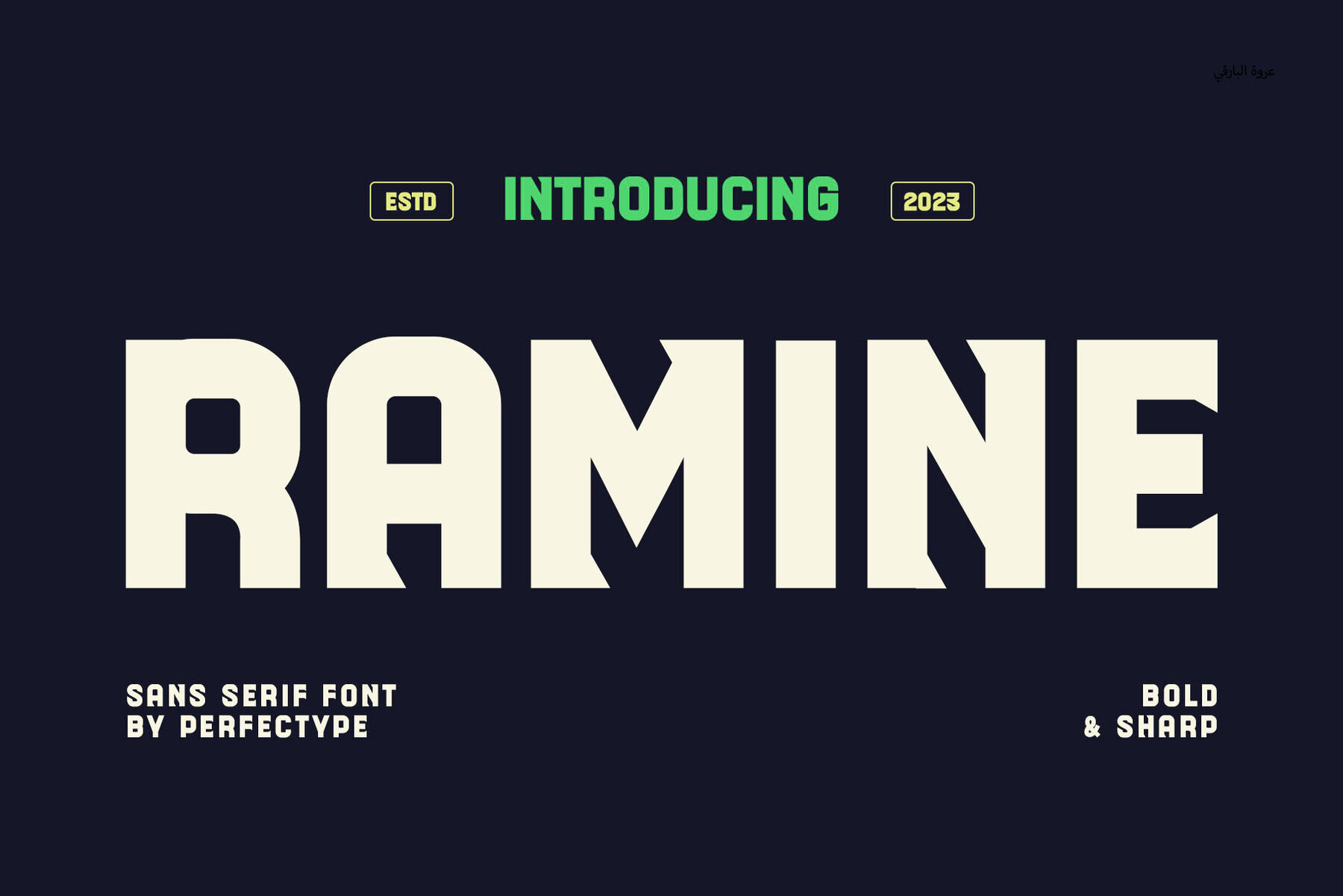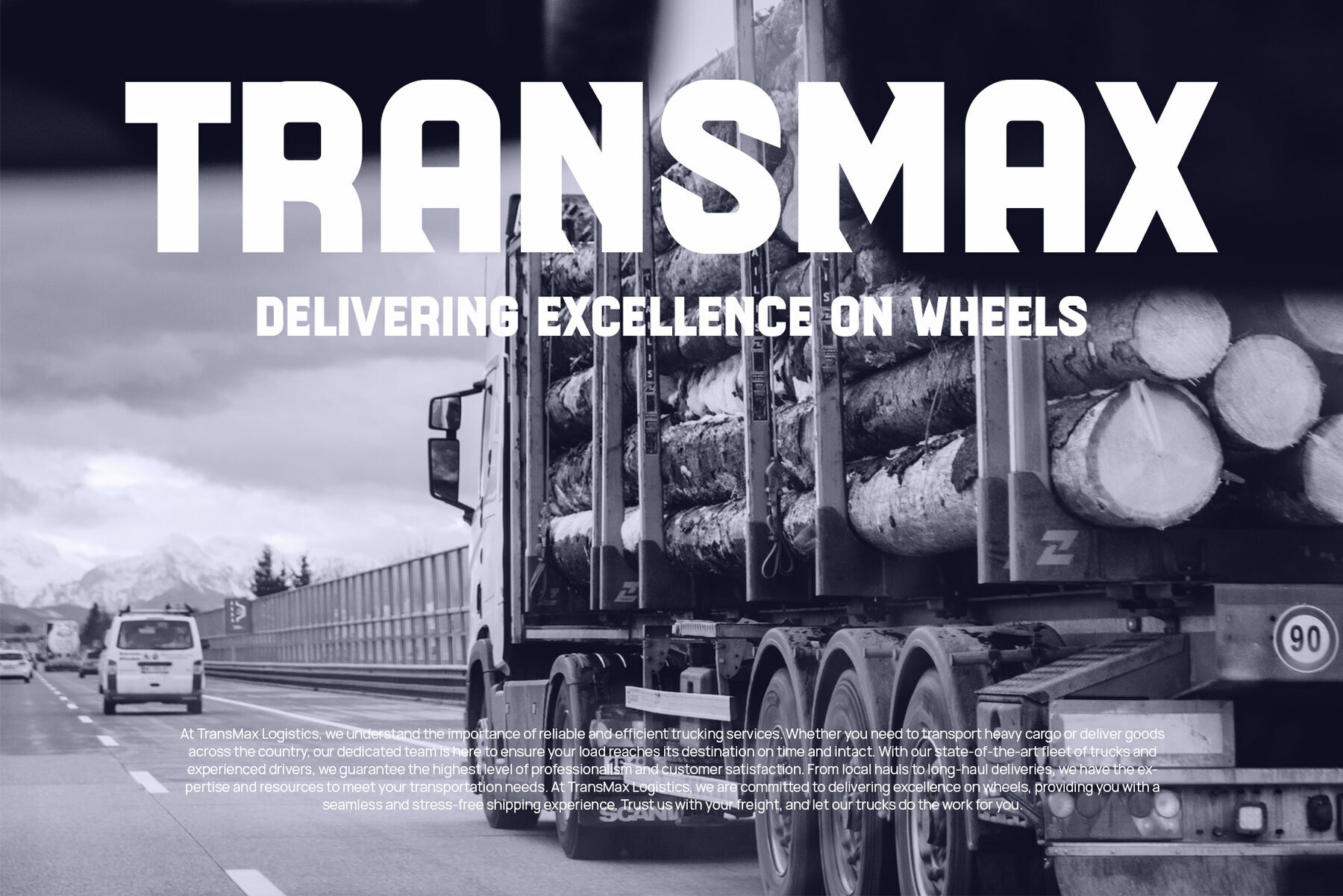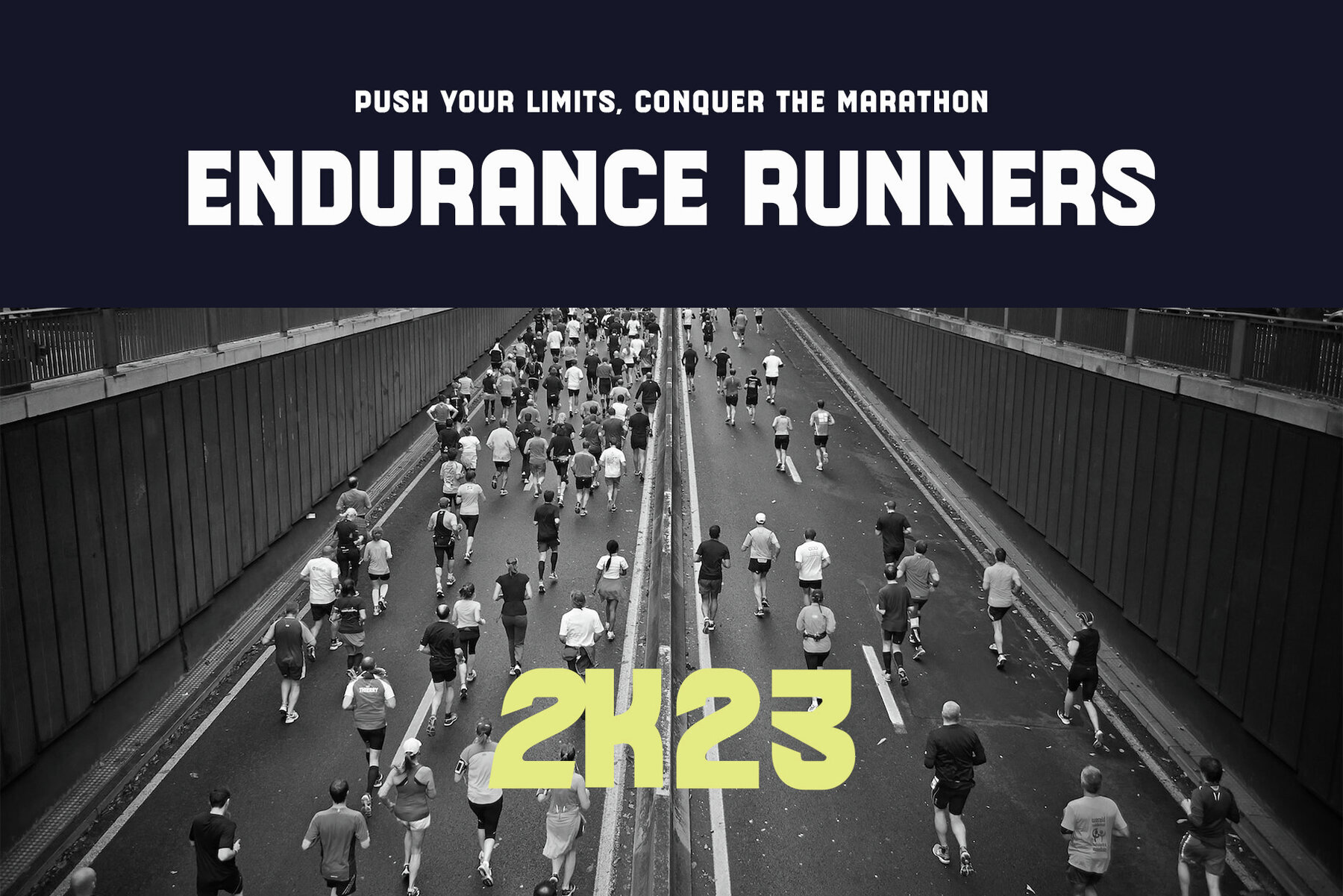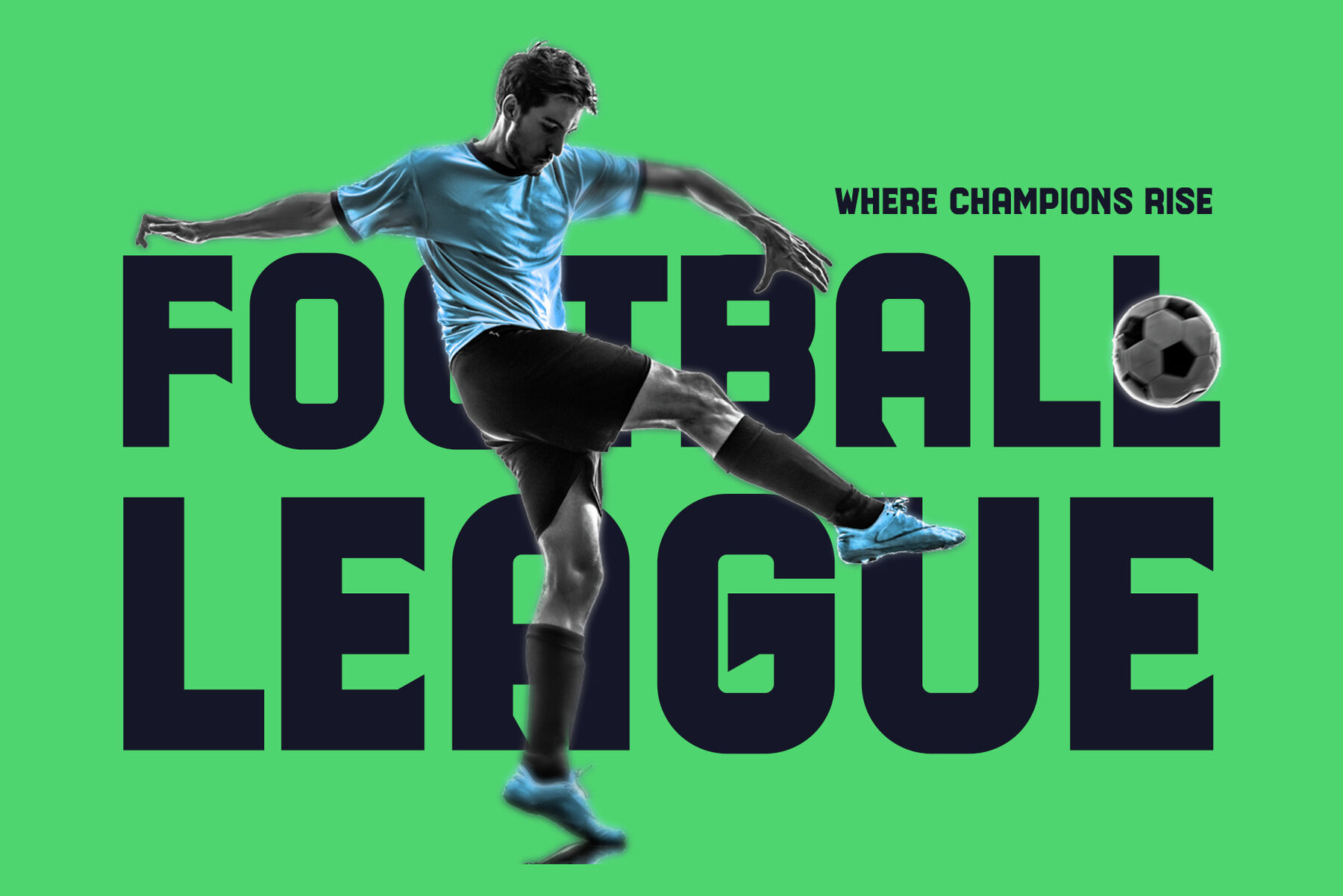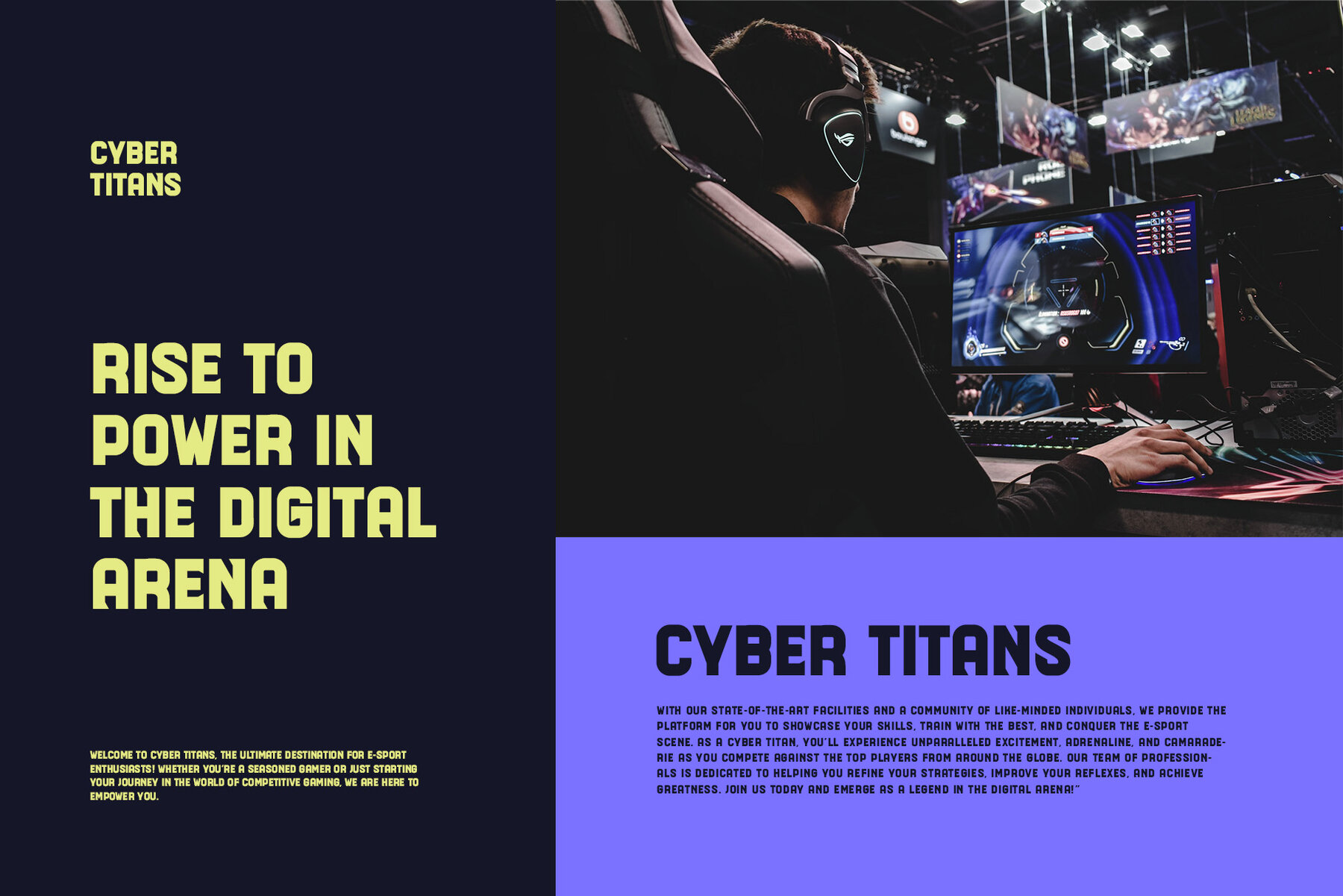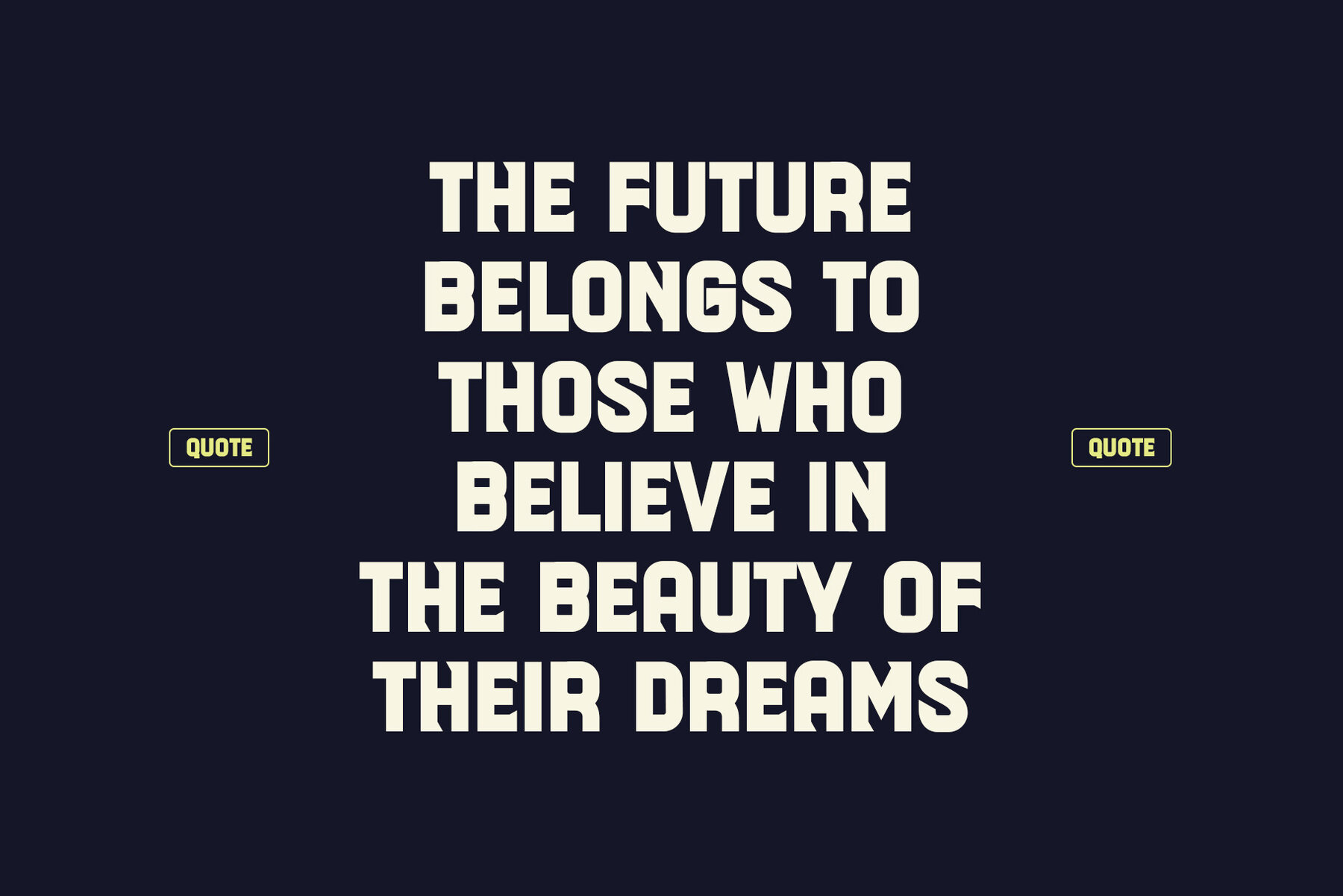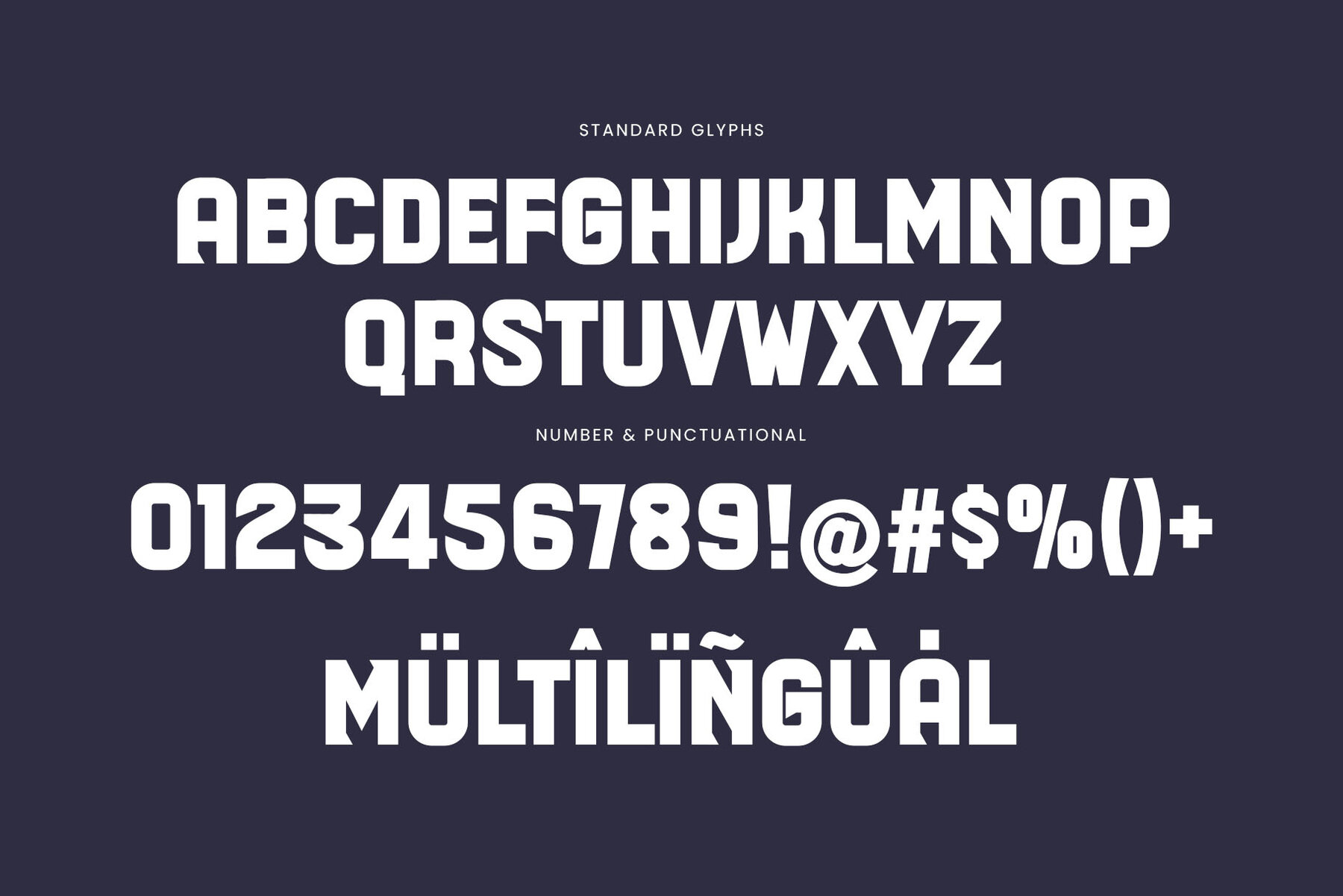
Ramine Font
Ramine Regular
Ramine is a sophisticated sans-serif font designed with a focus on balance and high readability. Its neat and detailed structure makes it ideal for a variety of branding applications, including brochures, videos, advertising brands, logos, magazines, layouts, posters, post templates, and games.
Key Features:
- Character standards
- Numbers & punctuation
- Accented characters (Western Europe)